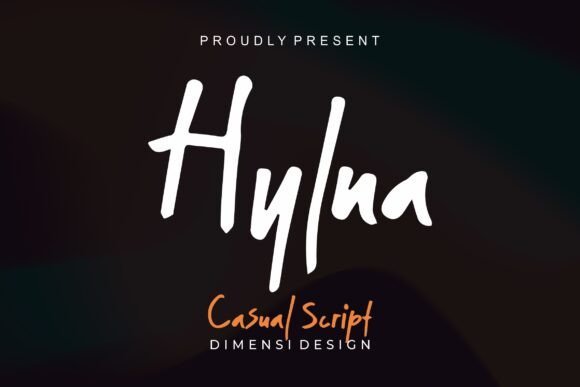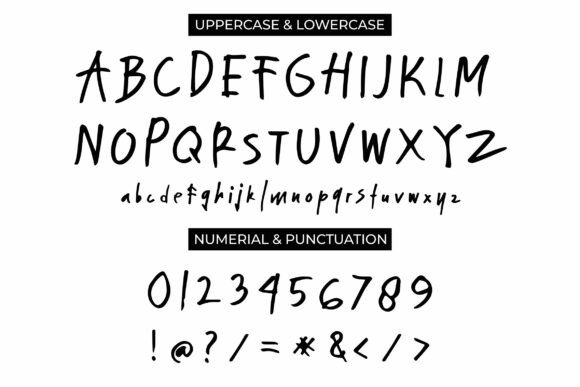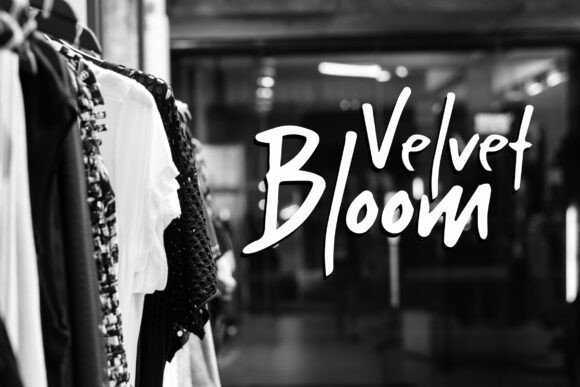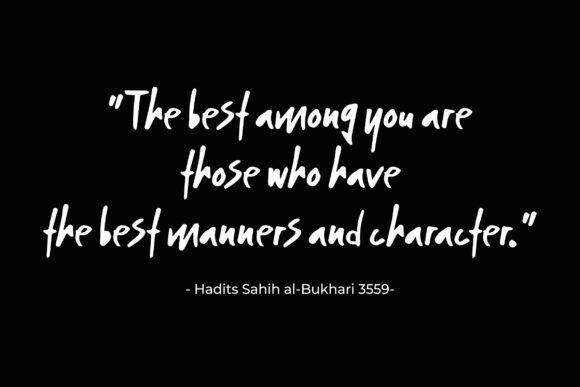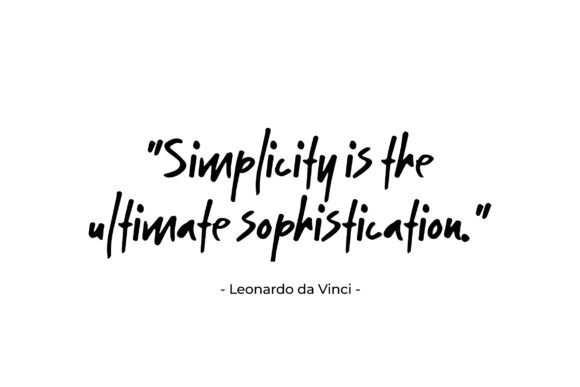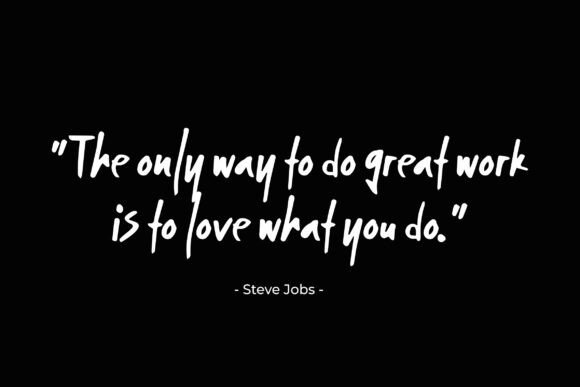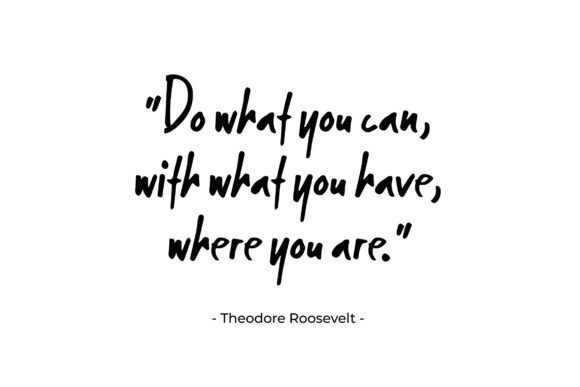
The Perfect Script: Elevate Your Designs with Hylna Font
Remember the moment when you first saw a beautifully handwritten quote on a friend’s Instagram post, and it immediately caught your attention? It’s that perfect blend of elegance and personal touch that makes you stop and take a closer look. As designers, we’re always on the lookout for fonts that can evoke that same feeling in our audiences.
Enter Hylna Font, a stunning script handwritten font that’s designed to bring a touch of natural elegance to your design projects. With its flowing, soft, and character-rich feel, Hylna Font is perfect for branding, wedding invitations, product packaging, and more. Its versatility and modern yet warm aesthetic make it a valuable addition to any designer’s toolkit.
Hylna Font Key Features
- Unique Characteristics: Hylna Font features a unique blend of modern and vintage elements, with intricate details and subtle flair.
Designer Review: Hylna Font
As a designer, I’ve had the chance to work with various fonts, and my experience with Hylna Font was quite interesting. Here’s my honest review.
- Hylna Font has a unique and modern aesthetic that can add a touch of sophistication to any design project.
- The font’s bold and condensed style makes it perfect for headings and titles.
- The font family is quite extensive, with multiple weights and styles to choose from.
However, there are some limitations: ⚠️
- The font’s readability can be an issue, especially in smaller sizes or when used for large blocks of text.
- The font’s condensed style can make it difficult to read for some users, particularly those with visual impairments.
Overall, I’d say Hylna Font is a great addition to any designer’s toolkit, but it’s essential to use it judiciously and consider the context in which it will be used. With the right design approach, Hylna Font can be a powerful tool for creating eye-catching and modern designs.
Tips for Getting the Most Out of Hylna Font
Use Hylna Font for creative projects, such as logos, posters, and social media graphics. It’s also great for adding a unique touch to presentations and documents. To get the most out of Hylna Font, experiment with different font sizes, colors, and combinations with other fonts.
Some common use cases for Hylna Font include:
– Creative logos and branding
– Social media graphics and advertisements
– Posters and flyers
– Presentations and documents
– Web design
Alternatives to Hylna Font
Great Vibes is a modern, elegant script font perfect for creating eye-catching headings and titles. It’s ideal for use in branding, advertising, and editorial design. Great Vibes has a more refined and sophisticated look compared to Hylna Font, which can be more playful and whimsical.
Alex Brush is a beautiful, handwritten font that exudes a sense of warmth and personality. It’s suitable for use in invitations, greeting cards, and other creative projects where a personal touch is desired. Compared to Hylna Font, Alex Brush has a more natural, handwritten feel and is better suited for projects that require a softer, more emotive tone.
Carolyna Pro is a stylish, modern script font that’s perfect for creating elegant and sophisticated designs. It’s ideal for use in luxury branding, high-end advertising, and editorial design. Carolyna Pro has a more refined and polished look compared to Hylna Font, which can be more playful and experimental.
Ostrich Sans is a modern, sans-serif font that’s perfect for use in clean and minimalistic designs. It’s ideal for use in digital products, web design, and corporate branding. Compared to Hylna Font, Ostrich Sans has a more clean and modern look, making it better suited for projects that require a sense of simplicity and clarity.
Exploring Hylna Font in Creative Projects
Project 1: Hylna Font-based Quote Art
Create visually striking quote art using Hylna Font, a beautiful and elegant script font. This project involves designing a quote in Hylna Font and combining it with a stunning background image or a custom illustration.